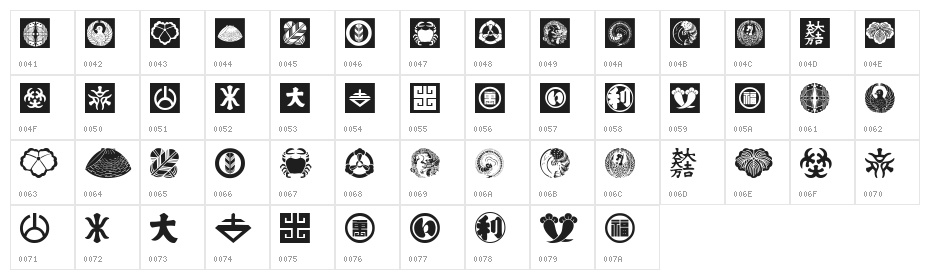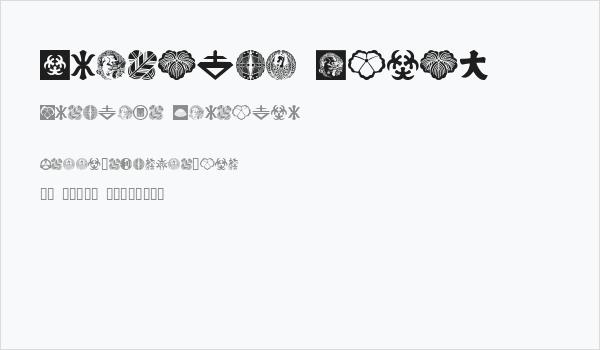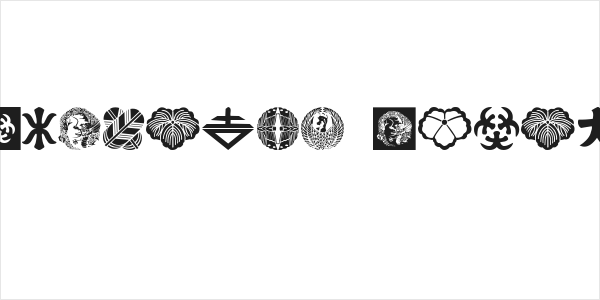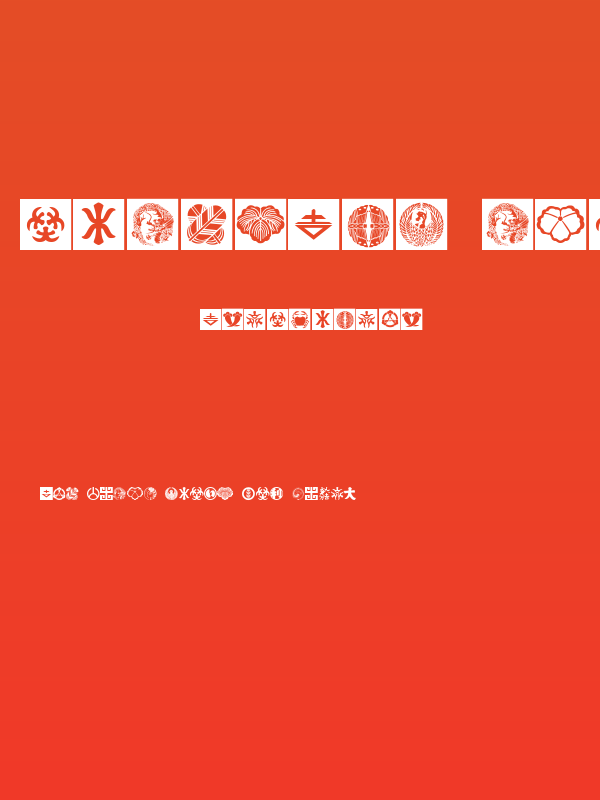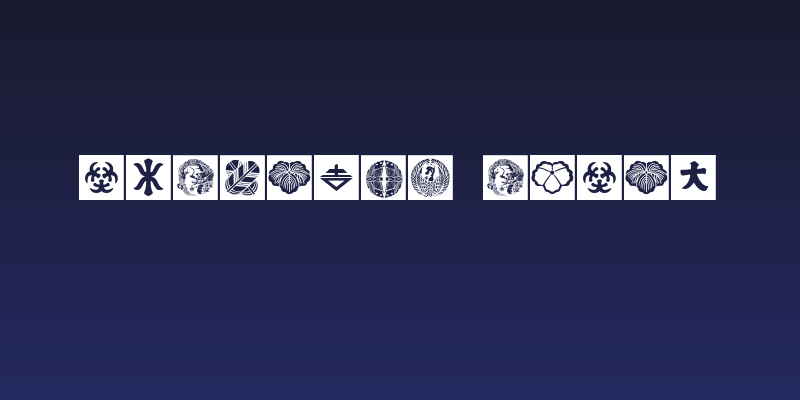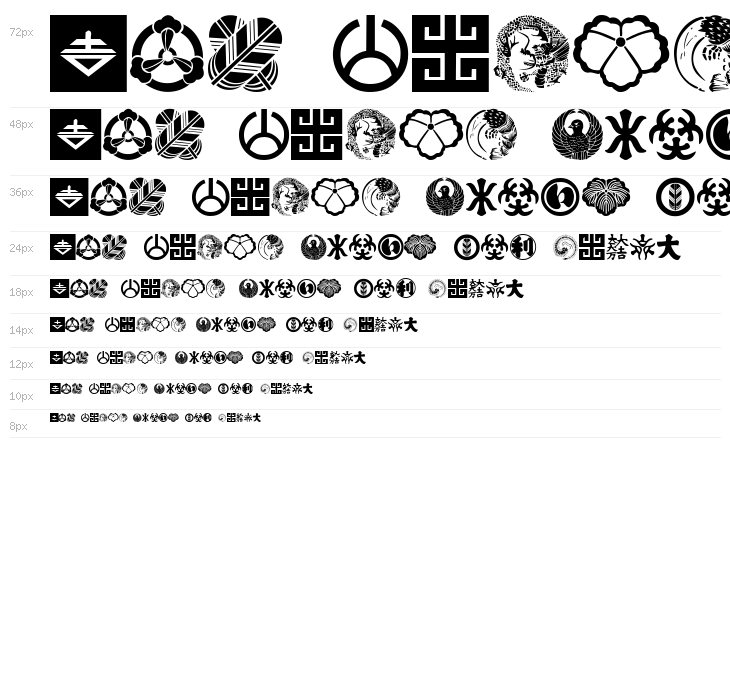
Oriental Icons Font
Oriental Icons Description
A decorative icon set featuring traditional East Asian motifs, including crests, symbols, and stylized characters, rendered in bold black and white with high contrast and intricate detailing.
| Overall Style | Decorative, Traditional, Ornamental |
| Use Case | Logos, Decorative elements, Posters, Branding |
| Proposed Projects | Branding for Asian restaurants, cultural event posters, packaging, decorative borders, logo design, themed invitations. |